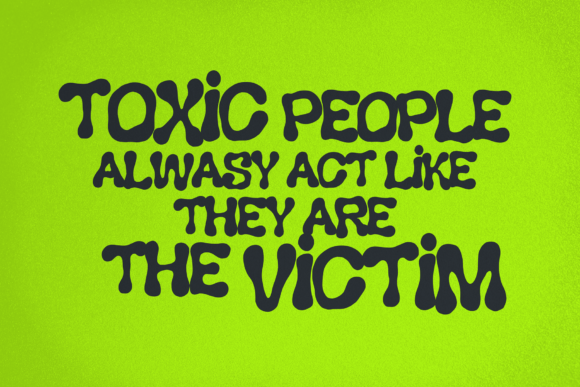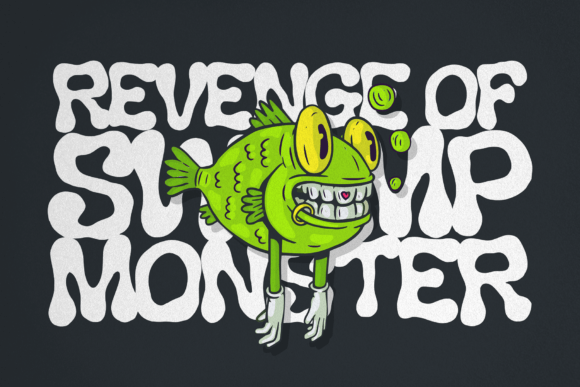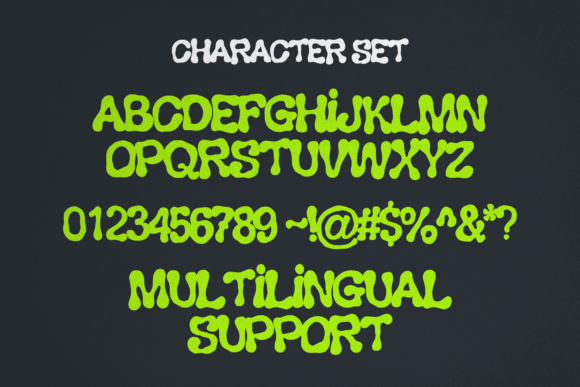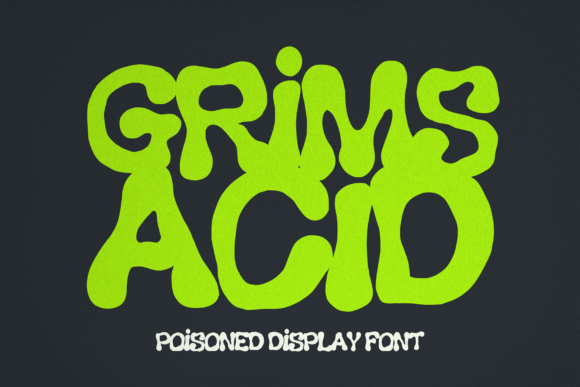
Introduction to Grims Acid Font
Grims Acid is a spine-chilling, liquid-inspired Halloween display font that oozes with eerie vibes.
With its twisted, dripping letters and macabre aesthetics, this font is the perfect choice for adding a touch of horror and dark whimsy to your Halloween-themed designs Whether you’re creating spooky party invitations, haunted house posters, or eerie social media graphics, Grims Acid will give your text a hauntingly memorable twist that sends shivers down the spine.
Key Features of Grims Acid Font
Why Choose Grims Acid Font?
Grims Acid Font offers exceptional quality and versatility, making it a valuable addition to your design toolkit. Whether you’re creating for personal projects or commercial use, Grims Acid Font delivers professional results.